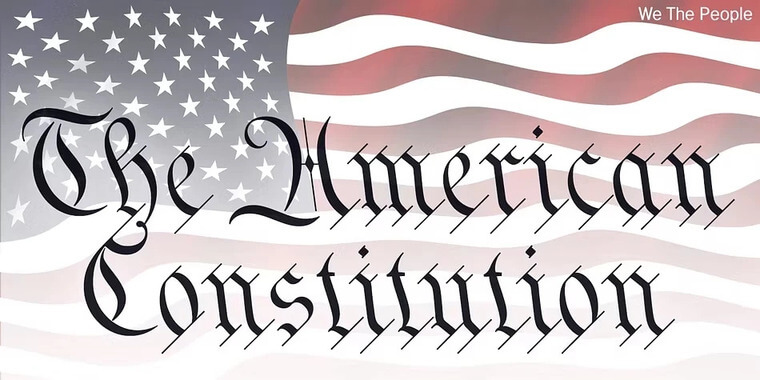
We The People Font is taken from the US Constitution Font. This unique font made by K-Type is called the ‘We The People Font’. It gets its style from the Constitution’s beginning, which says “We The People” in a fancy way.
This font represents the spirit of the Constitution and can make things look elegant and authentic. It comes with extra characters, decorative symbols, and Roman numerals to make it more versatile. The font has many different features that make it great for historical, patriotic, or formal themes that need a special combination of elegance and accuracy from the past.